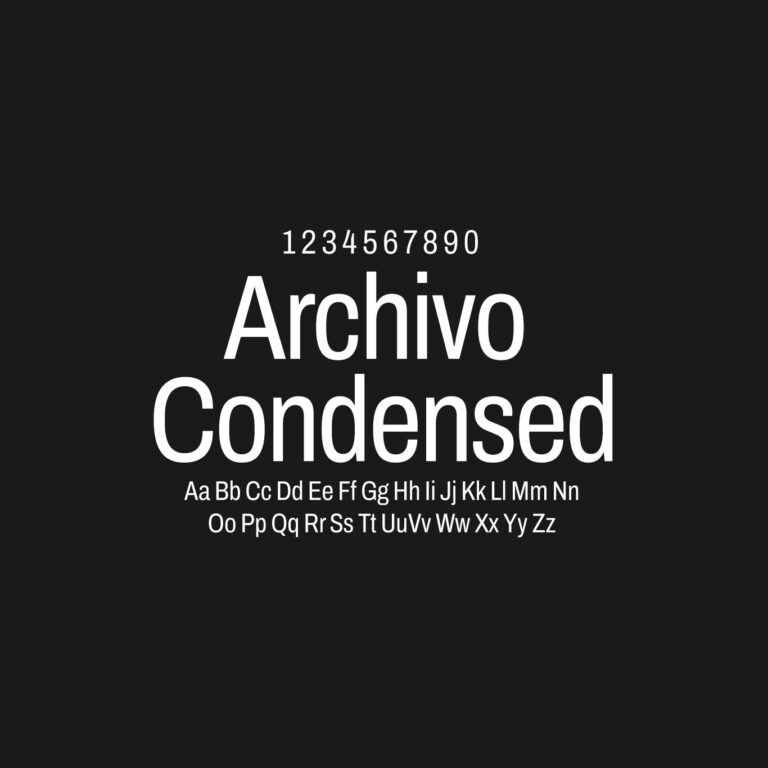
Archivo Condensed is a narrower version of the Archivo typeface, designed for strong typography in compact layouts. It has a clean grotesque structure, tight proportions and solid readability, making it useful for posters, headlines, websites, app interfaces, dashboards, editorial layouts, navigation systems, presentations and bold content design projects where text needs to fit into limited space.
Font Name: Archivo Condensed
Font Type: Sans Serif
Category: Grotesque Sans Serif / Condensed UI Font
Visual Style: Condensed, clean, strong, modern, readable
Best For: Posters, headlines, UI design, websites, dashboards, navigation systems, editorial layouts and presentations
Designer: Omnibus-Type